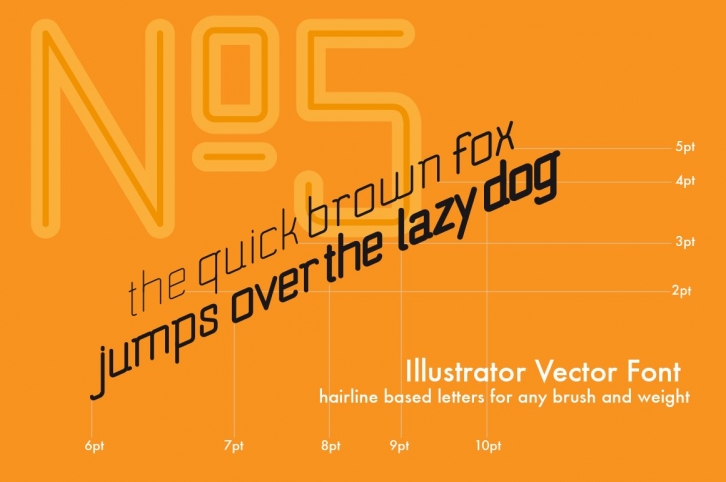
"No.5" Vector and OTF - Display Like Save "No.5" Vector and OTF - Display - 1 "No.5" Vector and OTF - Display - 2 "No.5" Vector and OTF - Display - 3 "No.5" Vector and OTF - Display - 4 "No.5" Vector and OTF - Display - 5 Update: OK, OK! not everybody owns and needs Illustrator, so I made this a font now with 233 glyphs, western european included. Have Fun!
No.5 is a hairline based VECTOR FONT for use in Adobe Illustrator with a slight OCR character. Give it any weight and style you want. See the examples done with some standard illustrator brushes. Looks best with rounded caps and joins. I put a handful of accents in the mix.
I will play around with this myself a while and the best hit will be made into a font.
...and now also as OTF Font!
I call it No.5 because, well … it's my fifth font. :)